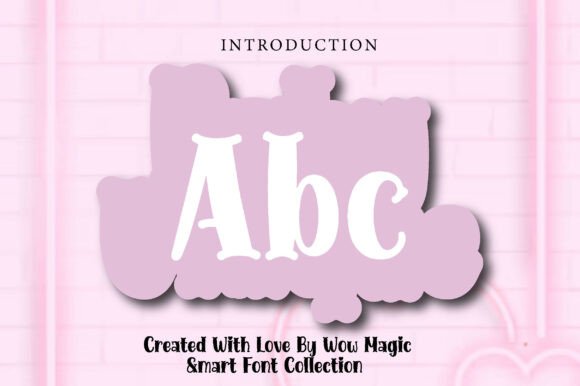
Baby Unique Font: Add a Touch of Whimsy to Your Designs
Are you looking for a font that can bring a dash of charm, joy, and personality to your designs? Look no further than the Baby Unique font! This sweet and playful decorative display font is perfect for designers and crafters who want to add a touch of whimsy to their projects. With its soft curves, whimsical serif details, and handcrafted character, Baby Unique is sure to make your designs stand out in a memorable and heartwarming way.
The Characteristics of Baby Unique Font
Baby Unique font is a decorative display font that boasts a range of characteristics that make it perfect for a variety of design projects. Some of its key features include:
- Soft Curves: The font features soft, rounded curves that give it a gentle and approachable feel.
- Whimsical Serif Details: The font’s serif details add a touch of playfulness and whimsy, making it perfect for designs that need a bit of personality.
- Handcrafted Character: The font has a handcrafted feel that gives it a unique and charming character.
Uses for Baby Unique Font
Baby Unique font is a versatile font that can be used for a wide range of design projects. Some of the most popular uses for this font include:
- Baby Shower Invitations: The font’s sweet and playful style makes it perfect for baby shower invitations that need a touch of whimsy.
- Nursery Decor: The font’s charming character makes it ideal for nursery decor designs, such as wall art and decals.
- Kids Branding: The font’s playful style makes it perfect for kids’ branding projects, such as logos and packaging.
- Product Packaging: The font’s unique character makes it ideal for product packaging that needs to stand out on store shelves.
- Greeting Cards: The font’s sweet and playful style makes it perfect for greeting cards that need a touch of personality.
- Posters: The font’s bold and eye-catching style makes it ideal for posters that need to grab attention.
- Social Media Graphics: The font’s playful style makes it perfect for social media graphics that need to stand out in crowded feeds.
- Playful Logo Concepts: The font’s unique character makes it ideal for playful logo concepts that need to make a statement.
Why Choose Baby Unique Font?
There are many reasons why designers and crafters should choose Baby Unique font for their projects. Some of the benefits of using this font include:
- Unique and Memorable: The font’s unique character makes it perfect for designs that need to stand out in a crowded market.
- Playful and Whimsical: The font’s playful style adds a touch of whimsy to any design, making it perfect for projects that need a bit of personality.
- Easy to Read: Despite its decorative nature, the font is easy to read, making it perfect for designs that need to communicate a message.
- Versatile: The font can be used for a wide range of design projects, from baby shower invitations to playful logo concepts.
Tips for Using Baby Unique Font
To get the most out of Baby Unique font, here are a few tips to keep in mind:
- Use it as a Display Font: The font is perfect for display purposes, such as headings and titles.
- Experiment with Colors: The font looks great in a range of colors, so don’t be afraid to experiment and find the perfect hue for your design.
- Pair it with Other Fonts: The font pairs well with other fonts, so try pairing it with a sans-serif font for a bold and eye-catching look.
In conclusion, Baby Unique font is a sweet and playful decorative display font that is perfect for designers and crafters who want to add a touch of whimsy to their projects. With its soft curves, whimsical serif details, and handcrafted character, this font creates a lovely and eye-catching look that feels both cute and unique. Whether you’re designing baby shower invitations, nursery decor, kids branding, product packaging, greeting cards, posters, social media graphics, or playful logo concepts, Baby Unique font is sure to make your designs stand out in a memorable and heartwarming way.